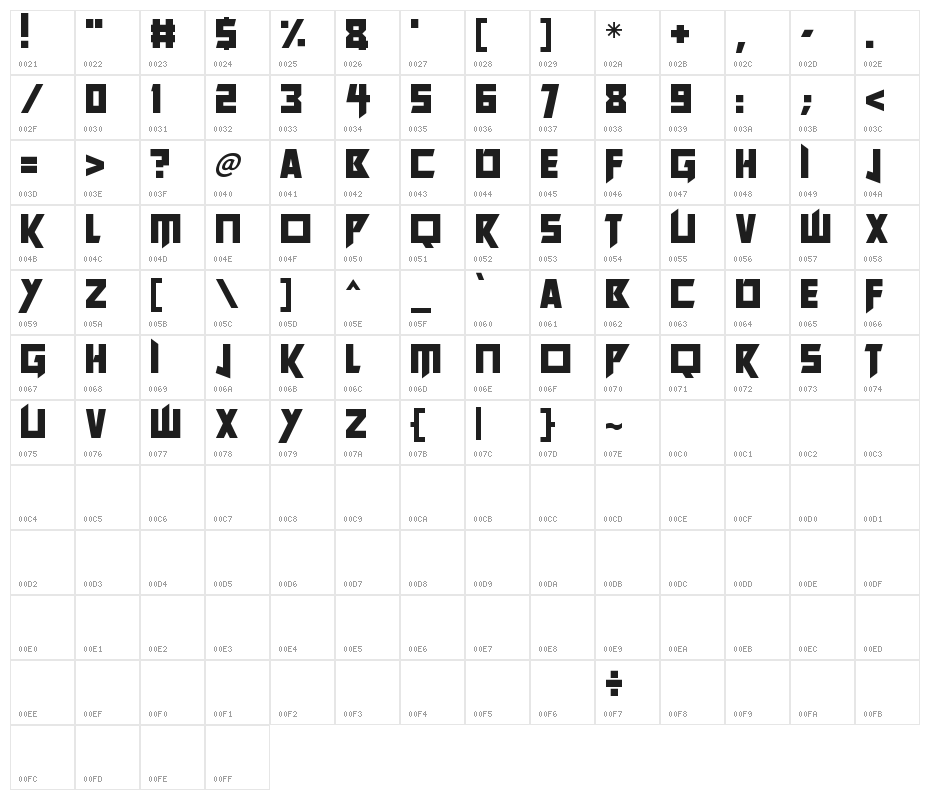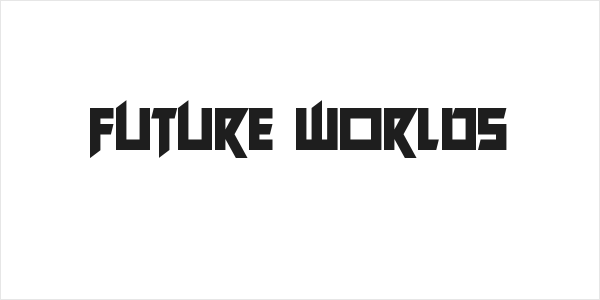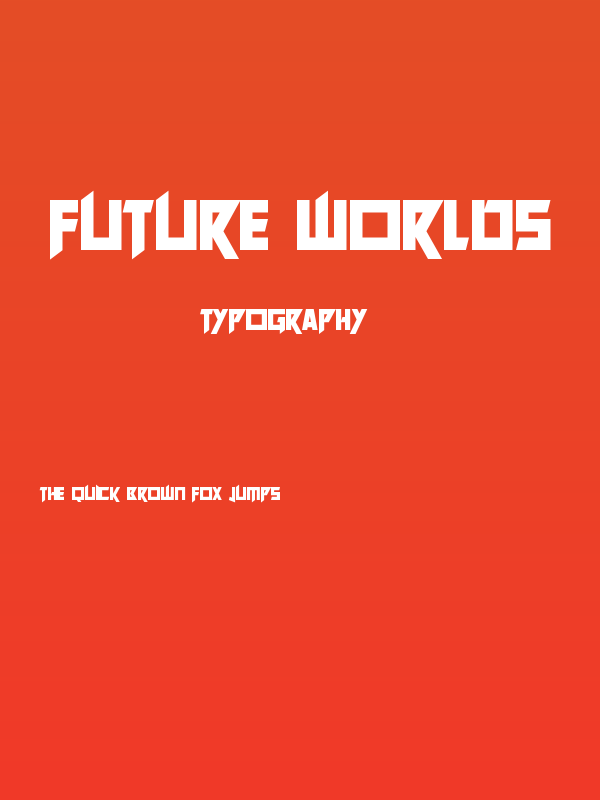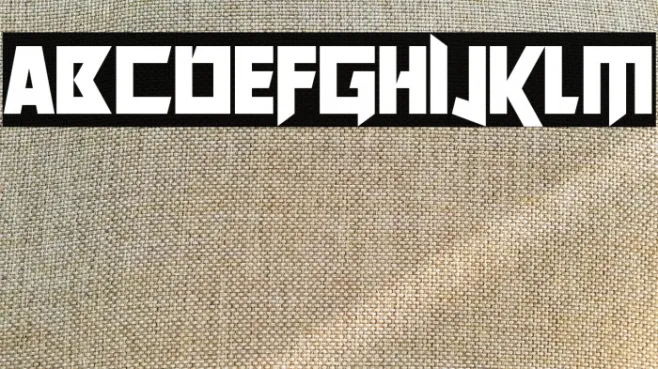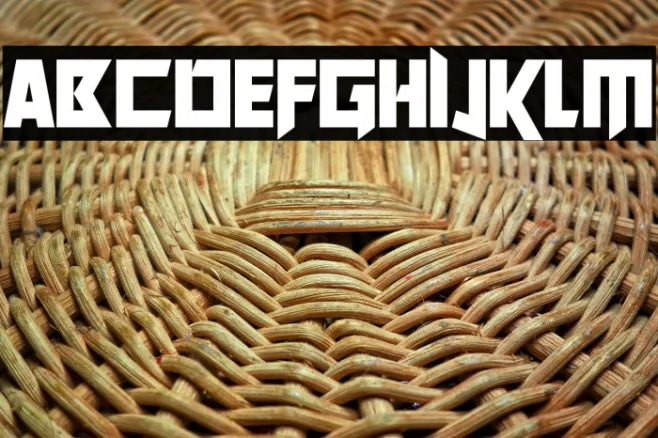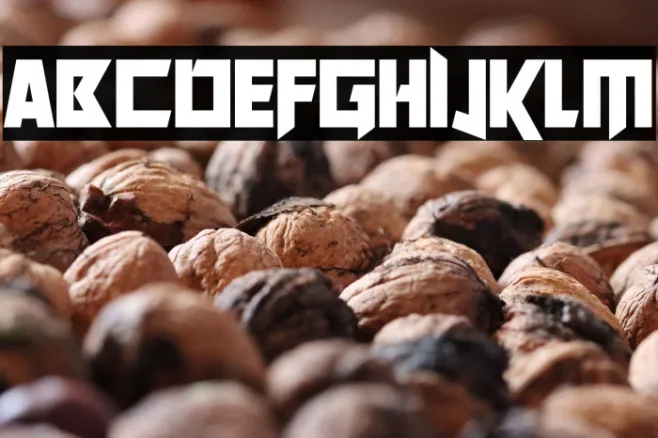
Future Worlds Font
Future Worlds Description
This font exhibits a bold, futuristic style characterized by sharp angles and geometric shapes. The uppercase and lowercase letters maintain a consistent blocky appearance, creating a sense of uniformity and strength. The numerals and special characters follow the same angular design, enhancing the overall cohesive look. The font's design is reminiscent of science fiction themes, making it ideal for projects that require a modern and edgy aesthetic. Its strong visual impact is suitable for attention-grabbing headlines and logos.
| Proposed Projects | Ideal for sci-fi themed posters, video game titles, tech branding, and futuristic event flyers. |